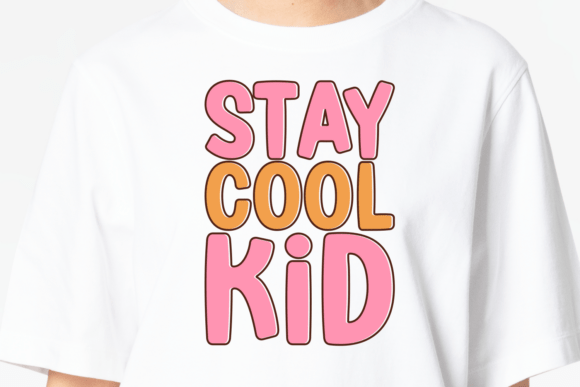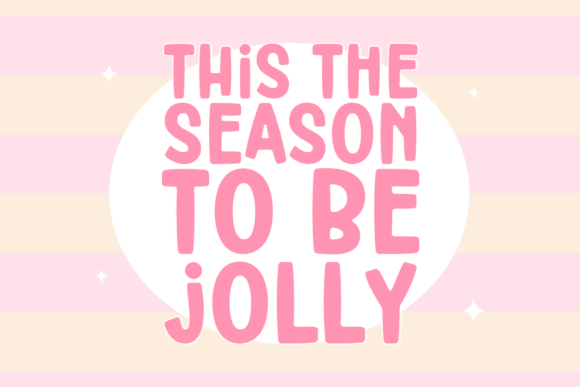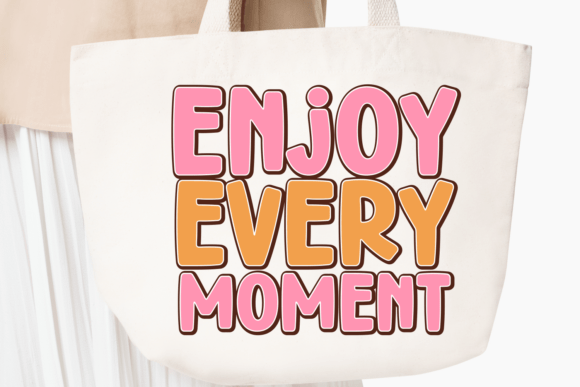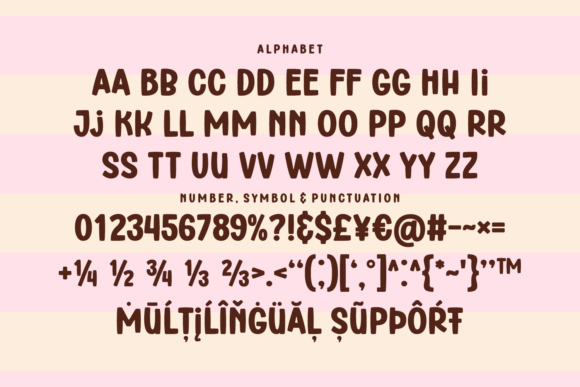
Introduction to Harvest Sunday Font
Presenting the lively Harvest Sunday typeface, a creative blend of striking boldness and entertaining bounce that exudes an infectiously fun aura.
It’s sweeping curves delicately temper the power of its robust nature, crafting a balanced fusion of warmth and potency Presenting itself as the ultimate playful display font, Harvest Sunday injects an invigorating dash of youthful enthusiasm into your projects.